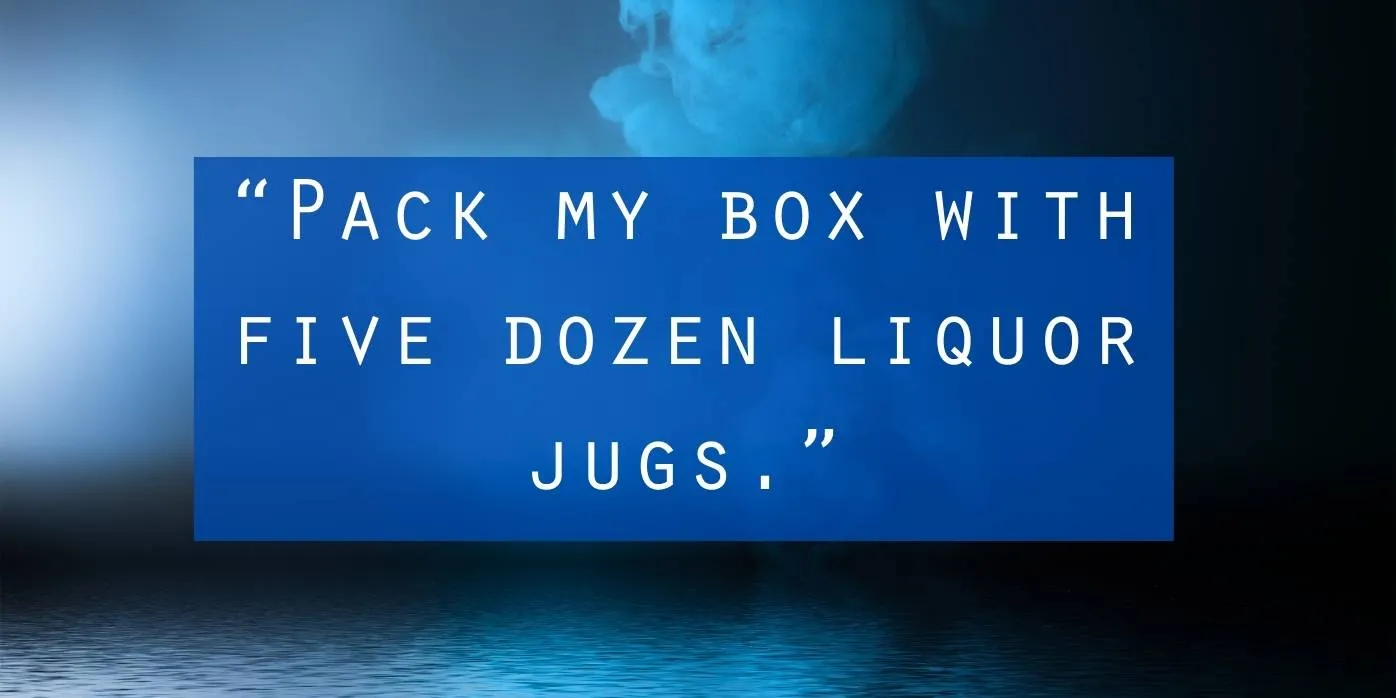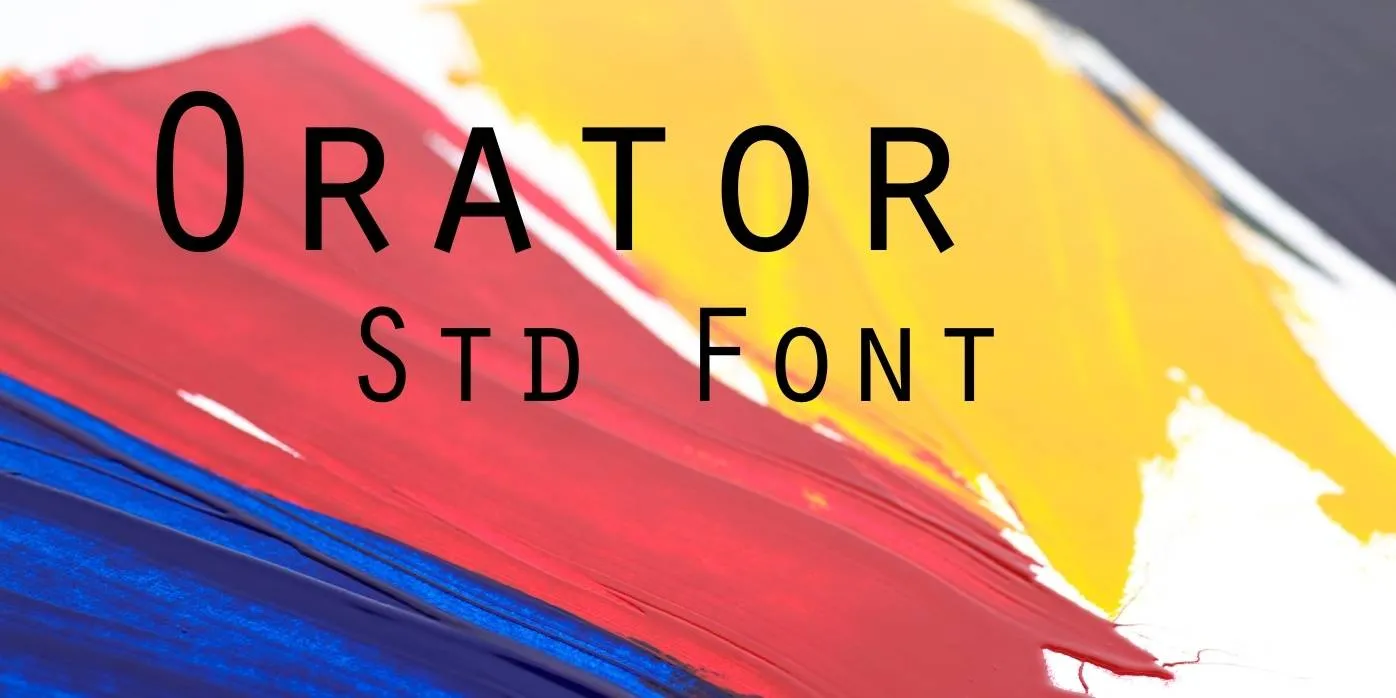
Orator Std Font
Today we are consulting on the very famous and attractive font that was known by the name Orator Std Font. This beautiful font belongs to the sans-serif typeface. This cute font family was developed by John Schepper. This typeface comes in 461 unique Glyphs and also includes four styles.
Its famous styles are Bold, Italic, Medium and others. This typeface is specified by the CSS Family. This staggering font is available in OTF and TTF format. This cute font family also involves famous and special characters like numerals, icons, symbols, and so on.